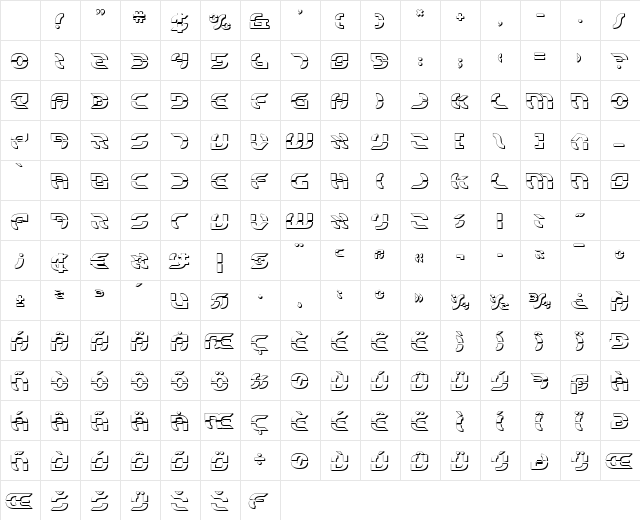
Complete Starfighter Shadow glyph index. Displaying only characters natively supported by Starfighter Shadow font.
Starfighter is built around its visual character rather than neutral utility - its distinctive forms are designed to make an impression at display sizes.
Font Pairing: Pair with a clean neutral sans-serif for body copy to let Starfighter's character lead without overwhelming the composition.
Pro Tip: Use Starfighter exclusively at display sizes - it was designed to be seen, not read at length. Let a neutral companion handle body copy.